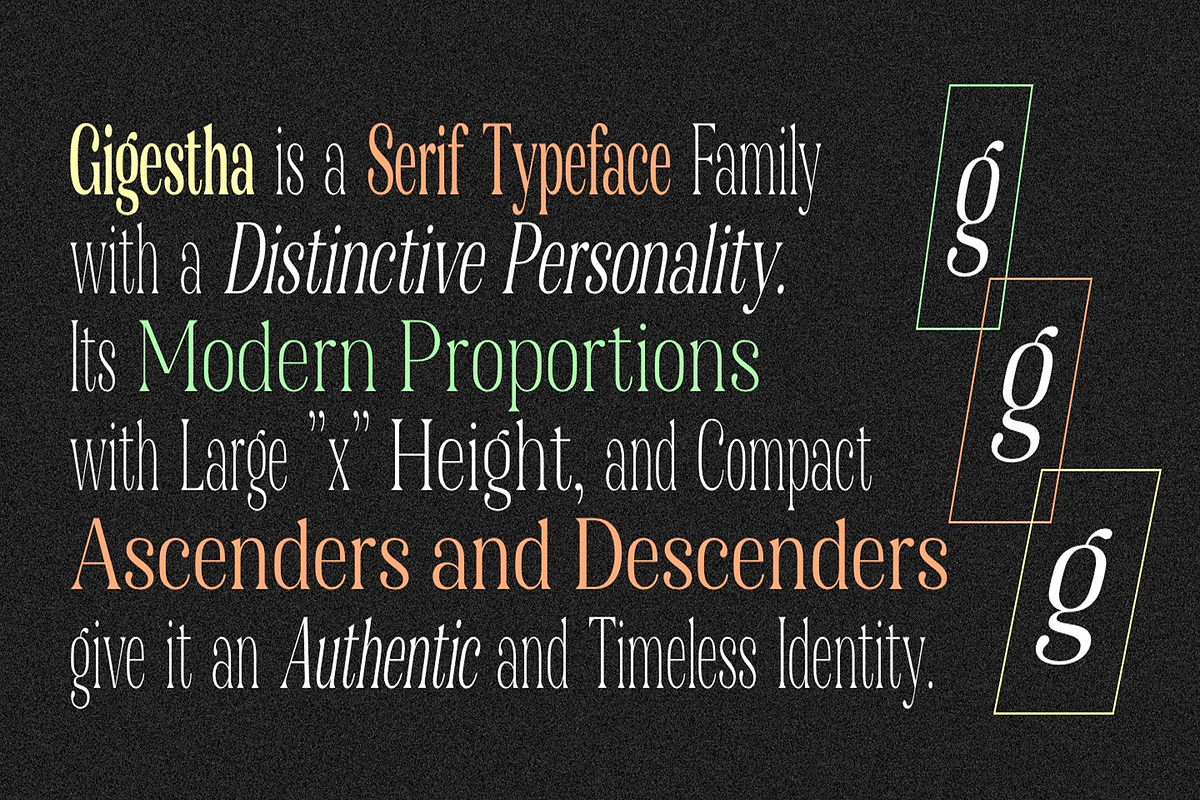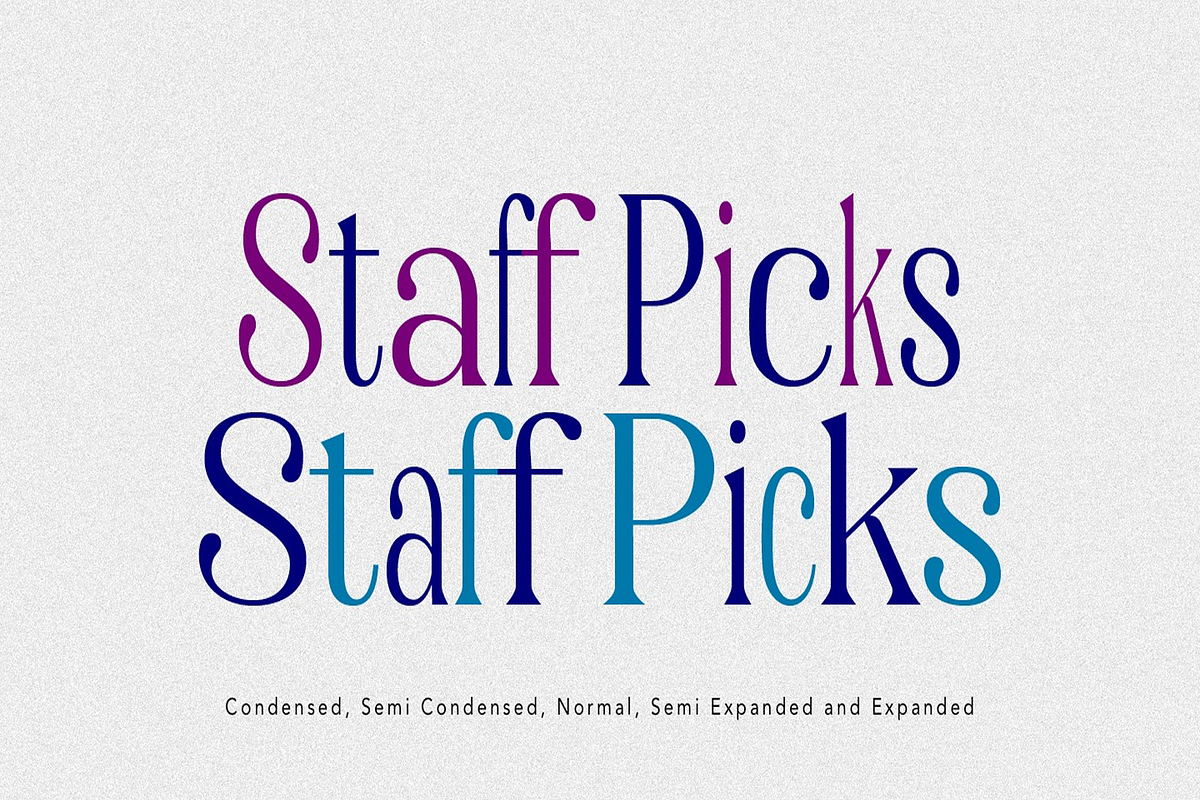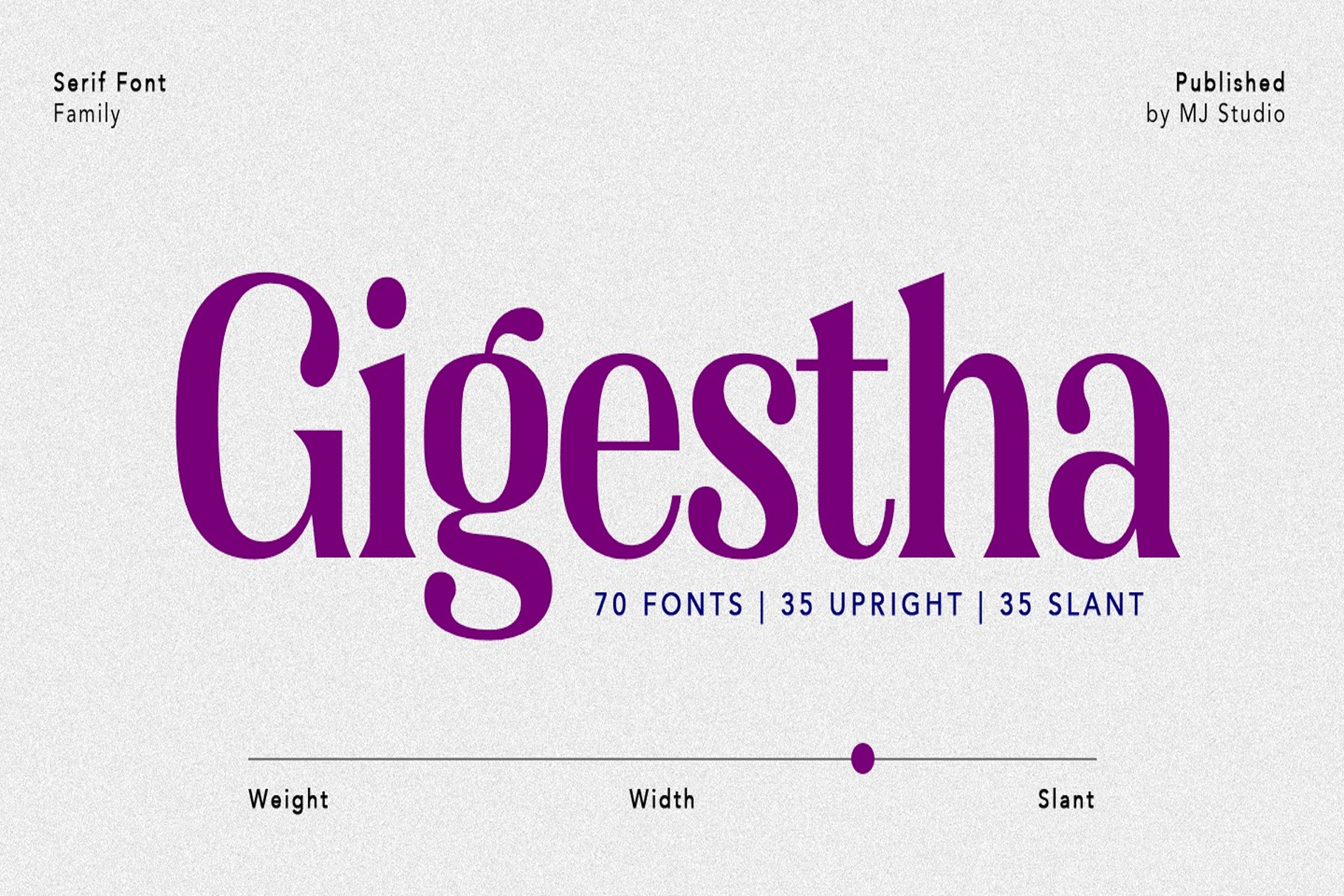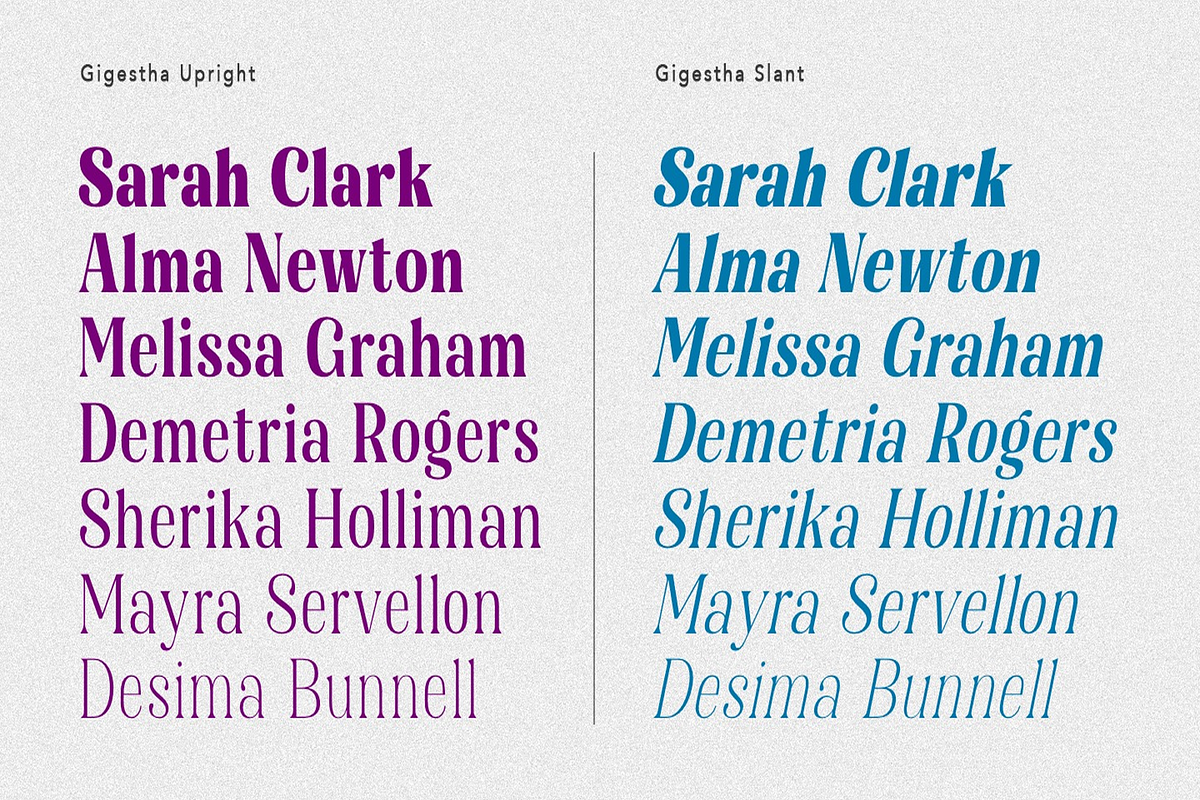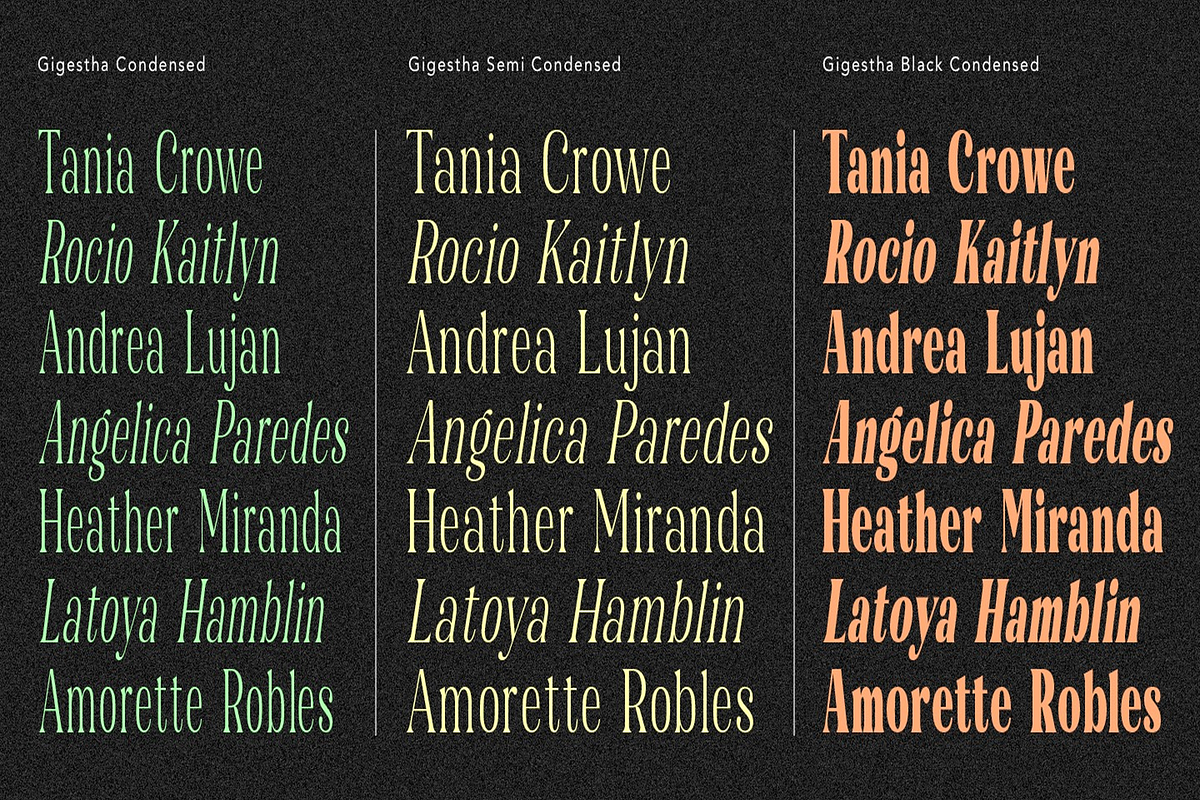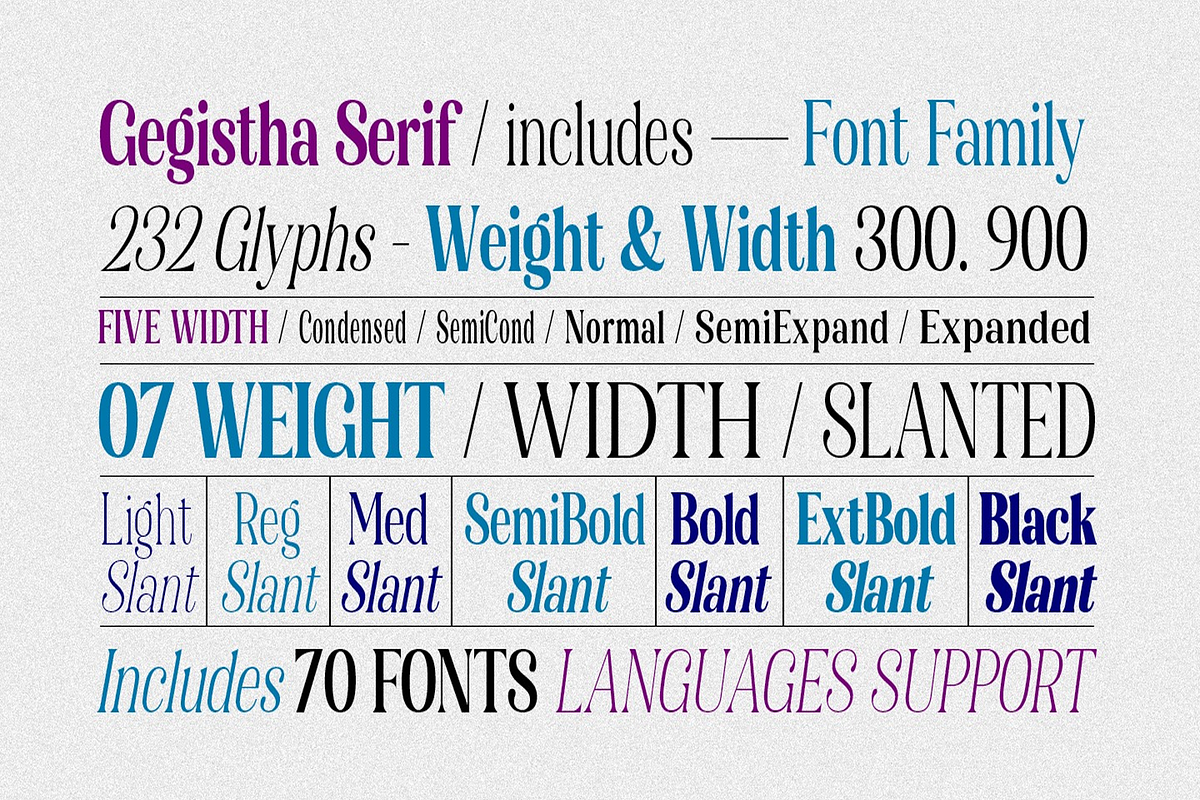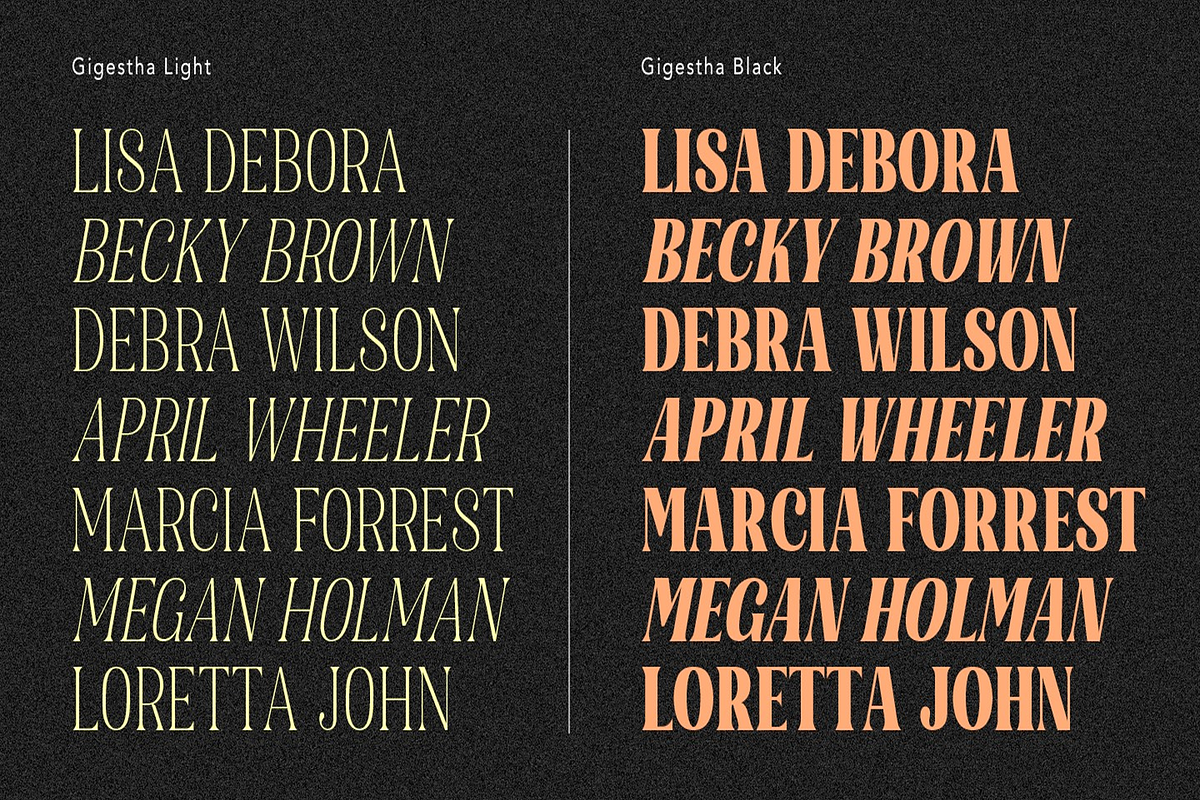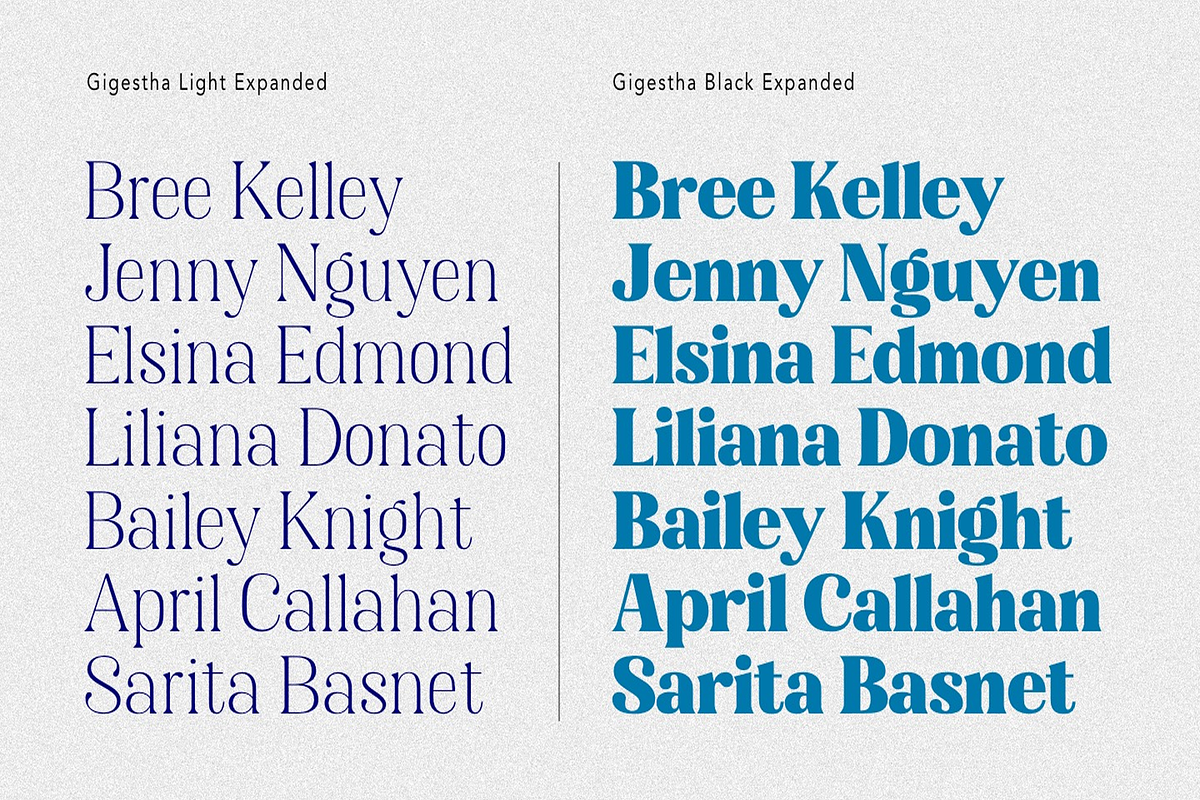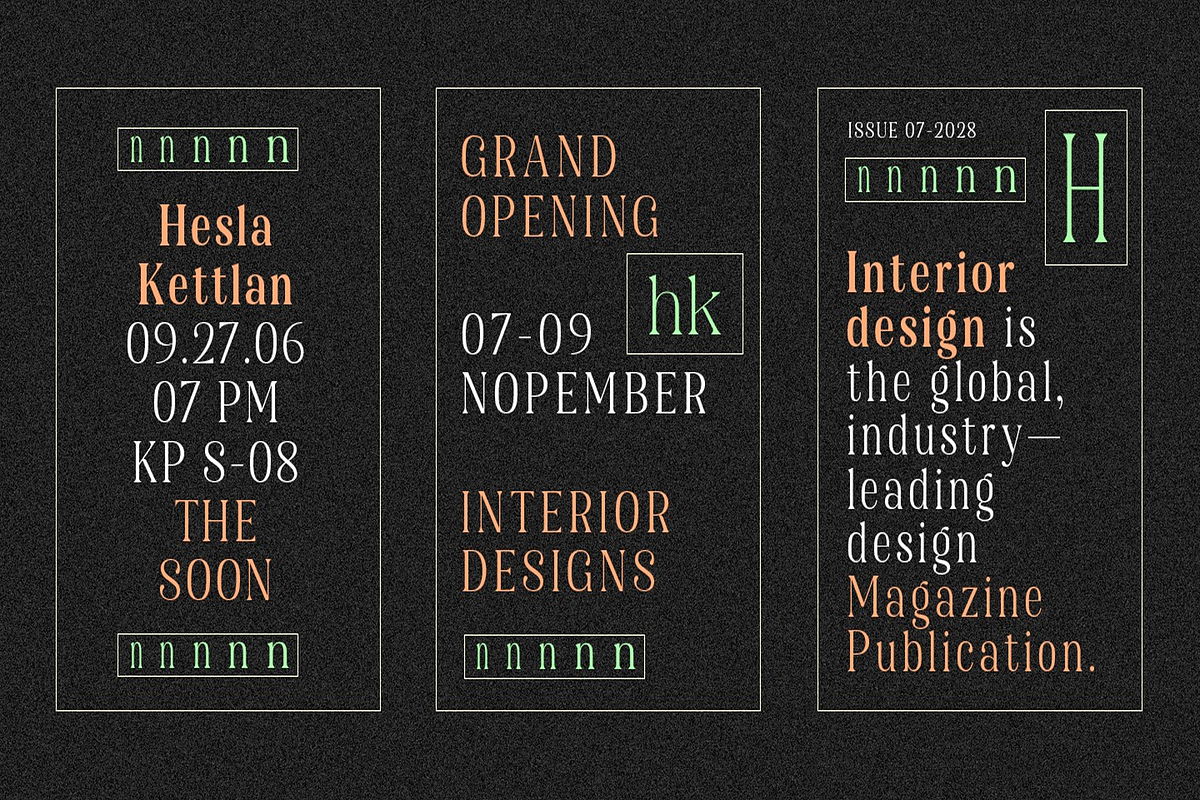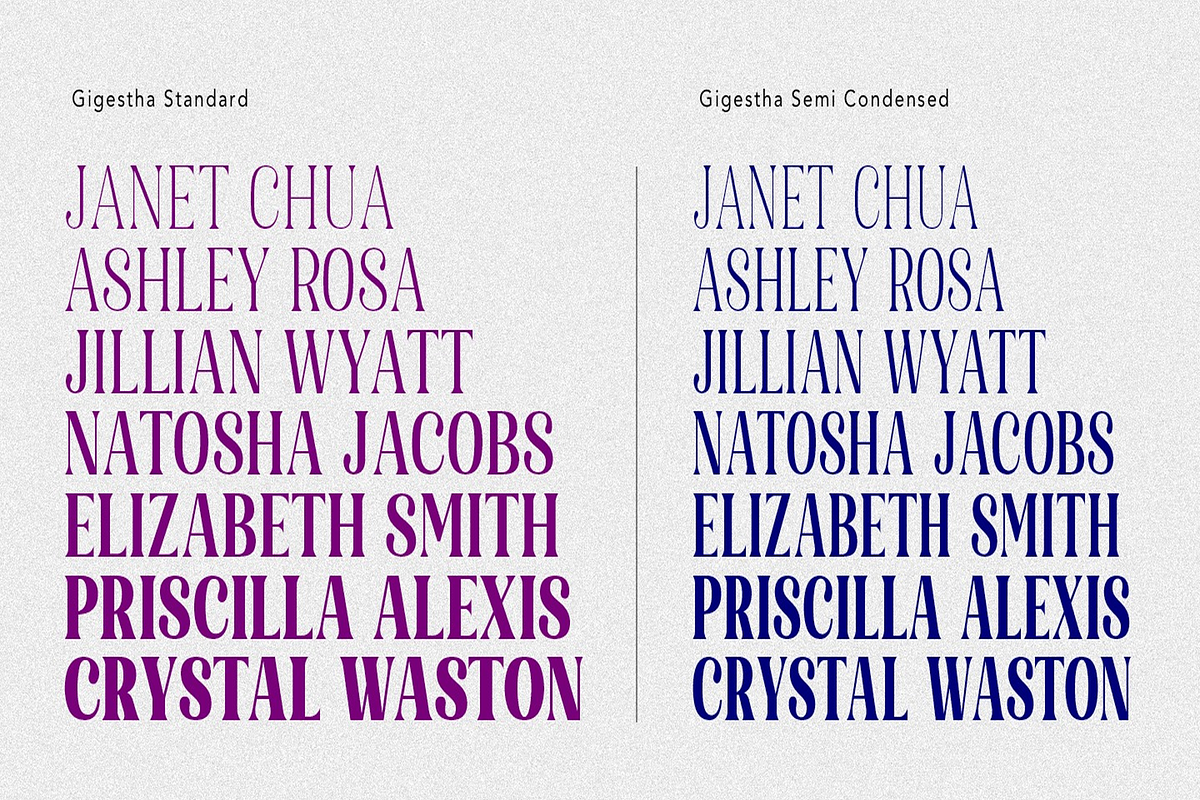
Gigestha Modern Serif (70 Fonts)
Gigestha is a sophisticated serif typeface family that blends modern proportions with a timeless elegance. Featuring a generous x-height and compact ascenders and descenders, Gigestha carries a distinctive personality that stands out while remaining highly legible. Designed for versatility, it's an ideal choice for branding, editorial design, posters, logos, titles, blogs, and much more. Gigestha comes fully equipped with uppercase and lowercase letters, numerals, punctuation, and multilingual support. With 7 weights, 5 widths, and slanted styles, the family offers an impressive 70 font files, giving designers full control and flexibility across a wide range of design applications.